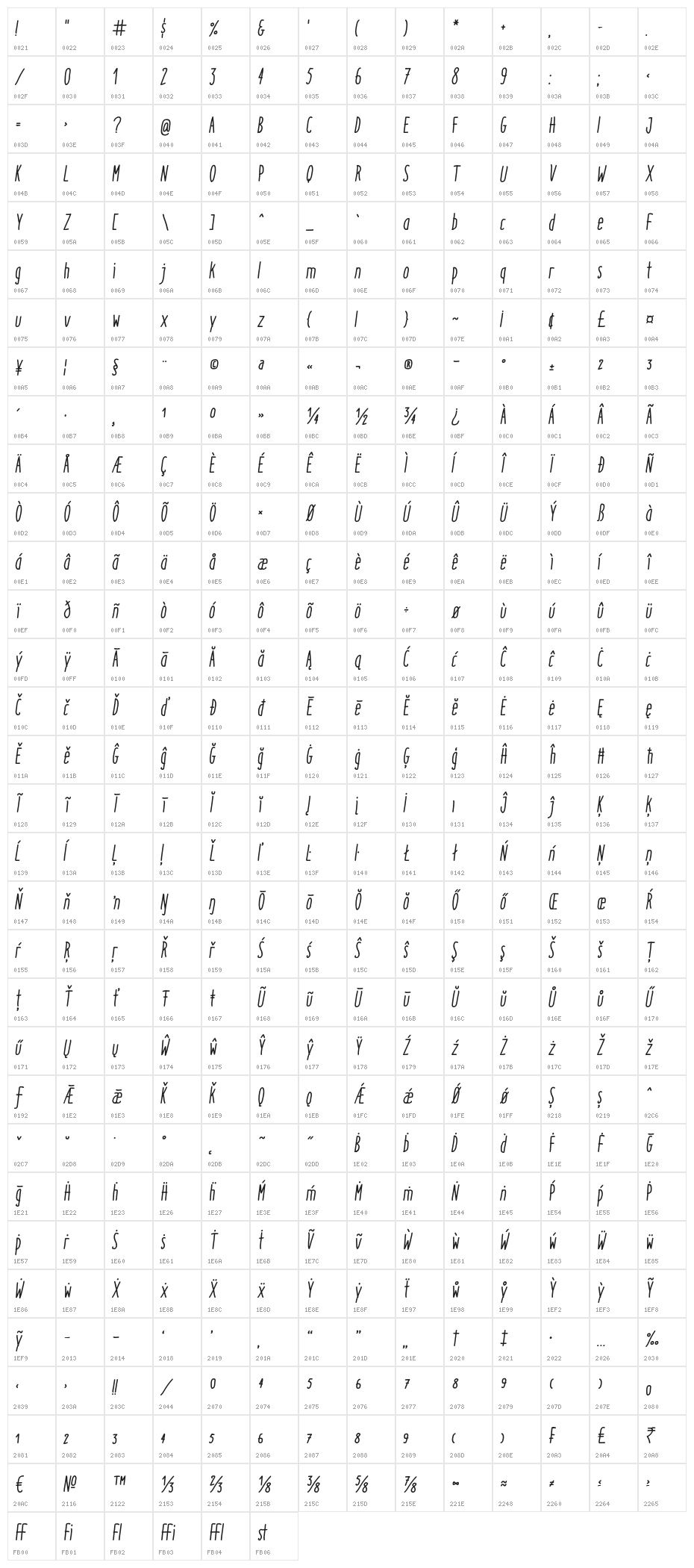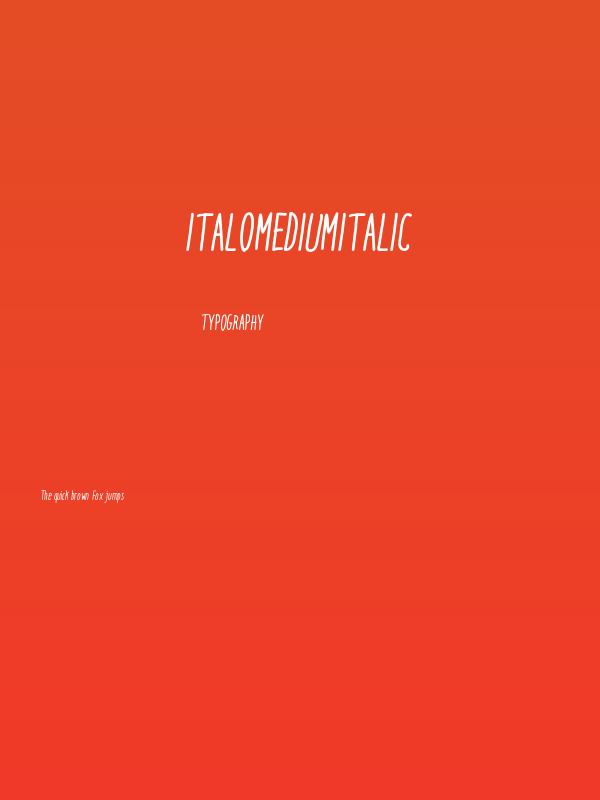
ItaloMediumItalic Font
ItaloMediumItalic Description
This font features a modern, handwritten style with a slight slant, giving it an italic appearance. The characters are elongated and have a playful, casual feel, making them suitable for informal and creative projects. The uppercase letters are tall and narrow, while the lowercase letters maintain a consistent flow with rounded edges. Numbers and special characters are designed to match the overall aesthetic, providing a cohesive look. The font's medium weight ensures readability while maintaining its unique style.
| Proposed Projects | Ideal for greeting cards, invitations, personal branding, and creative projects. |